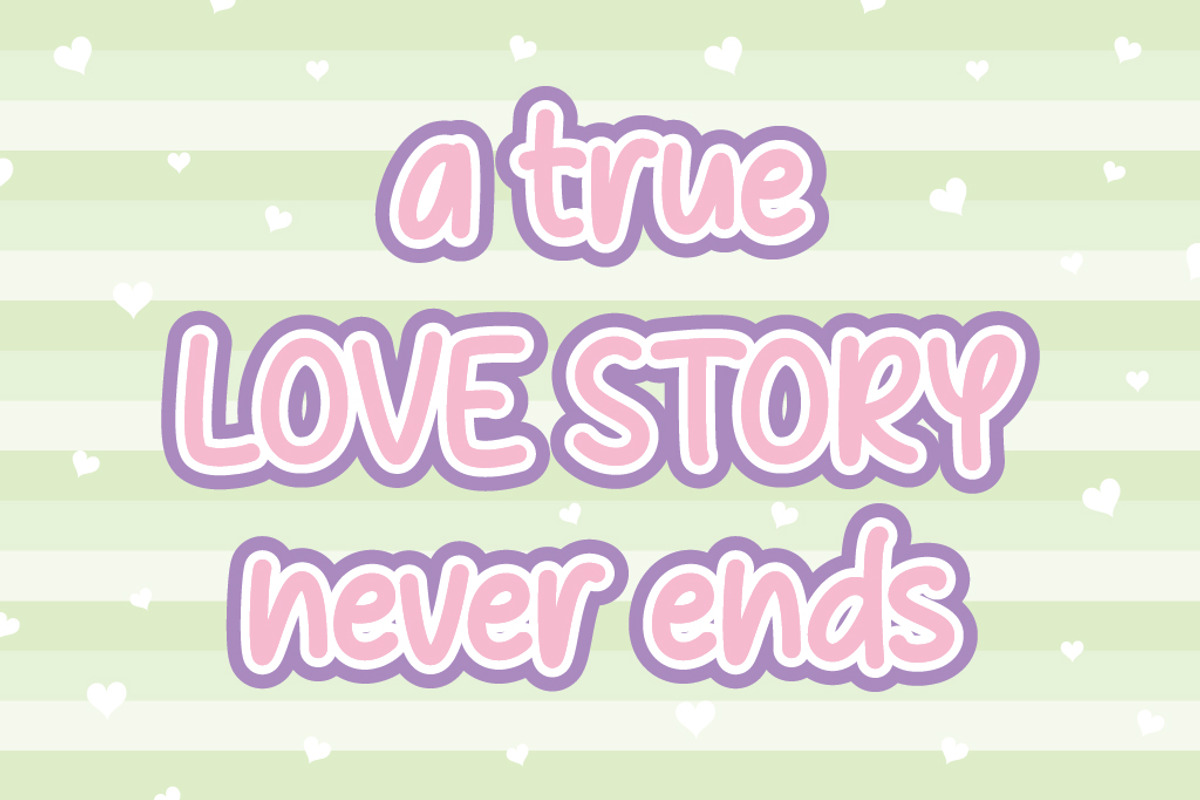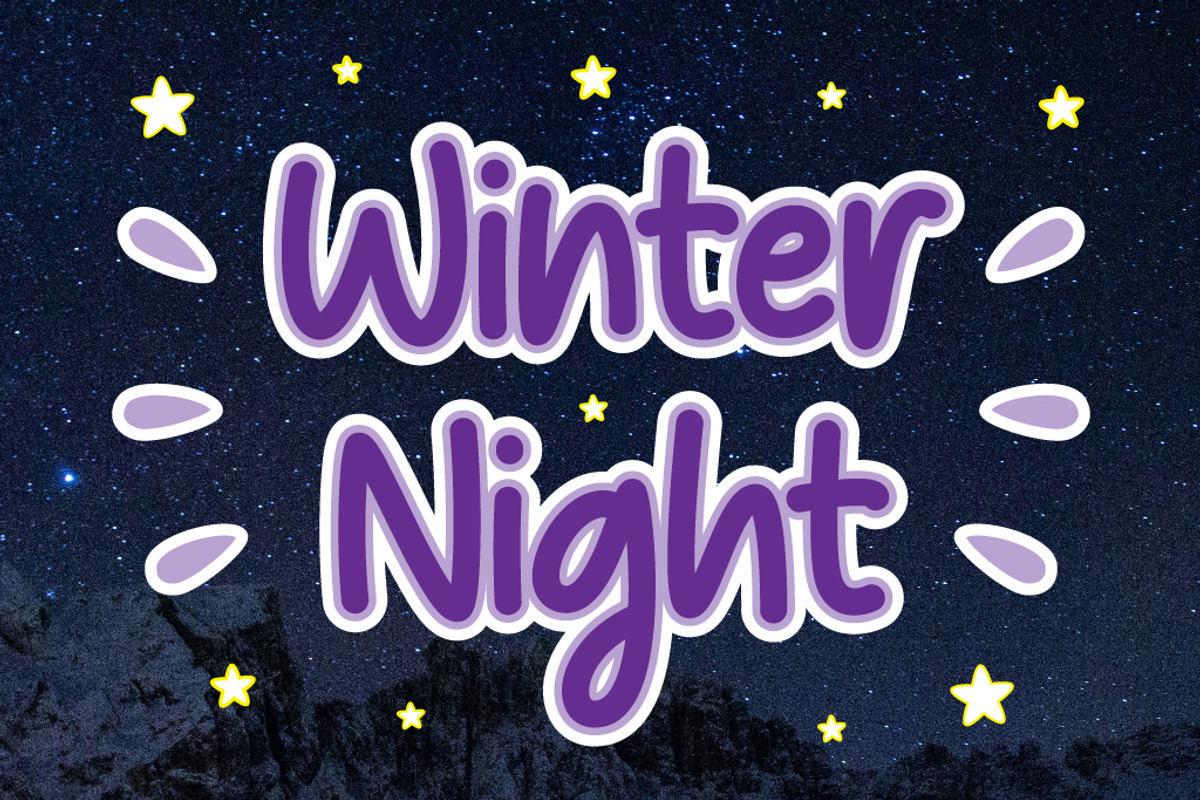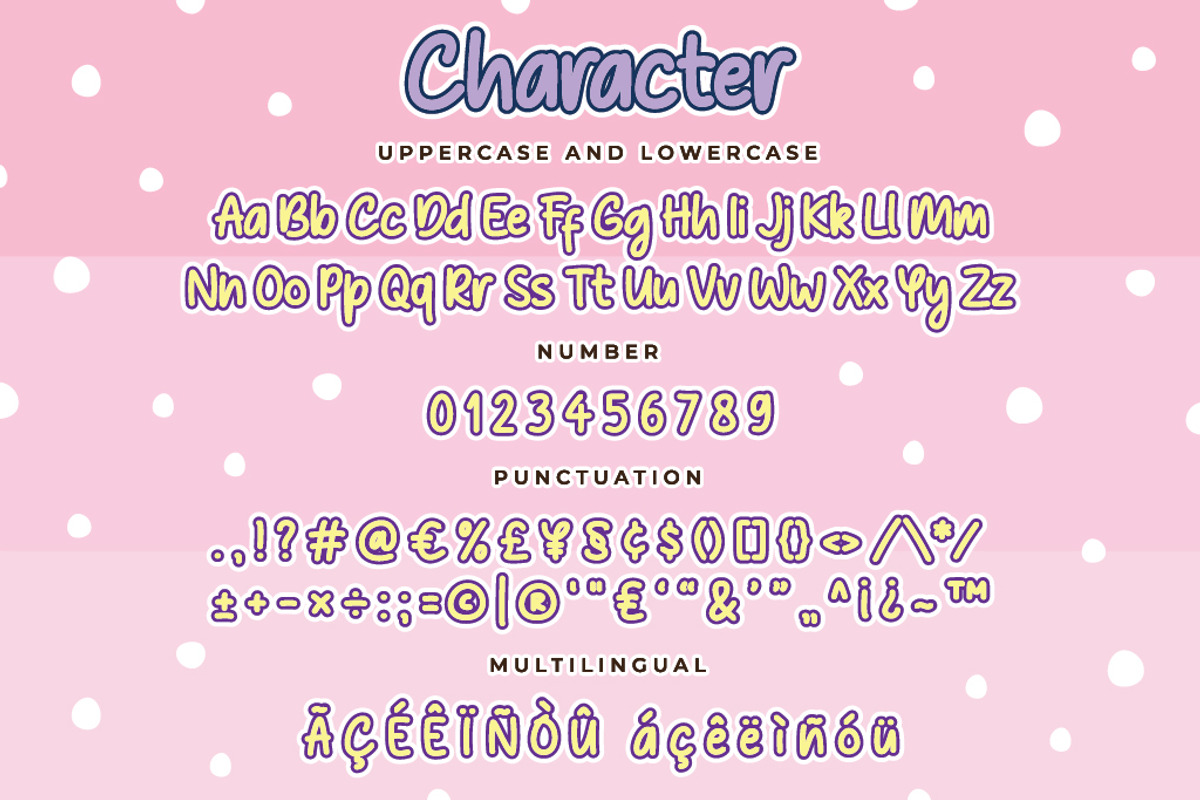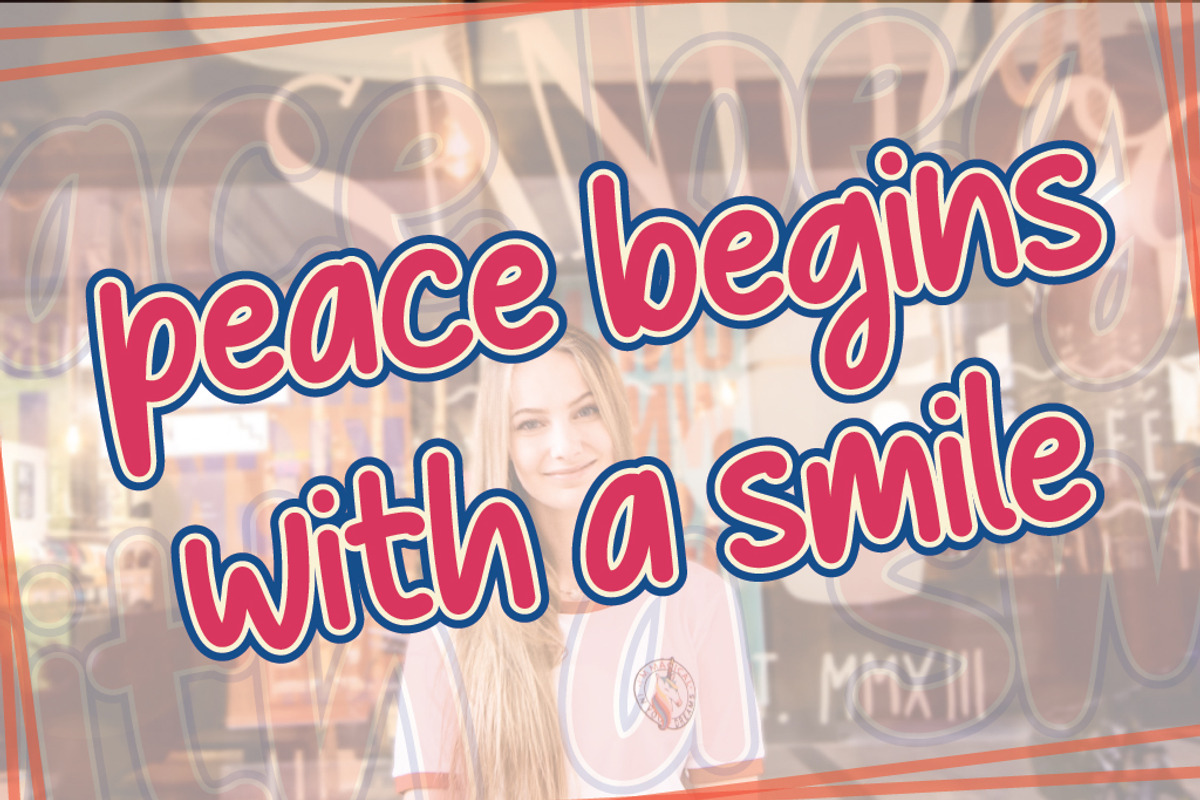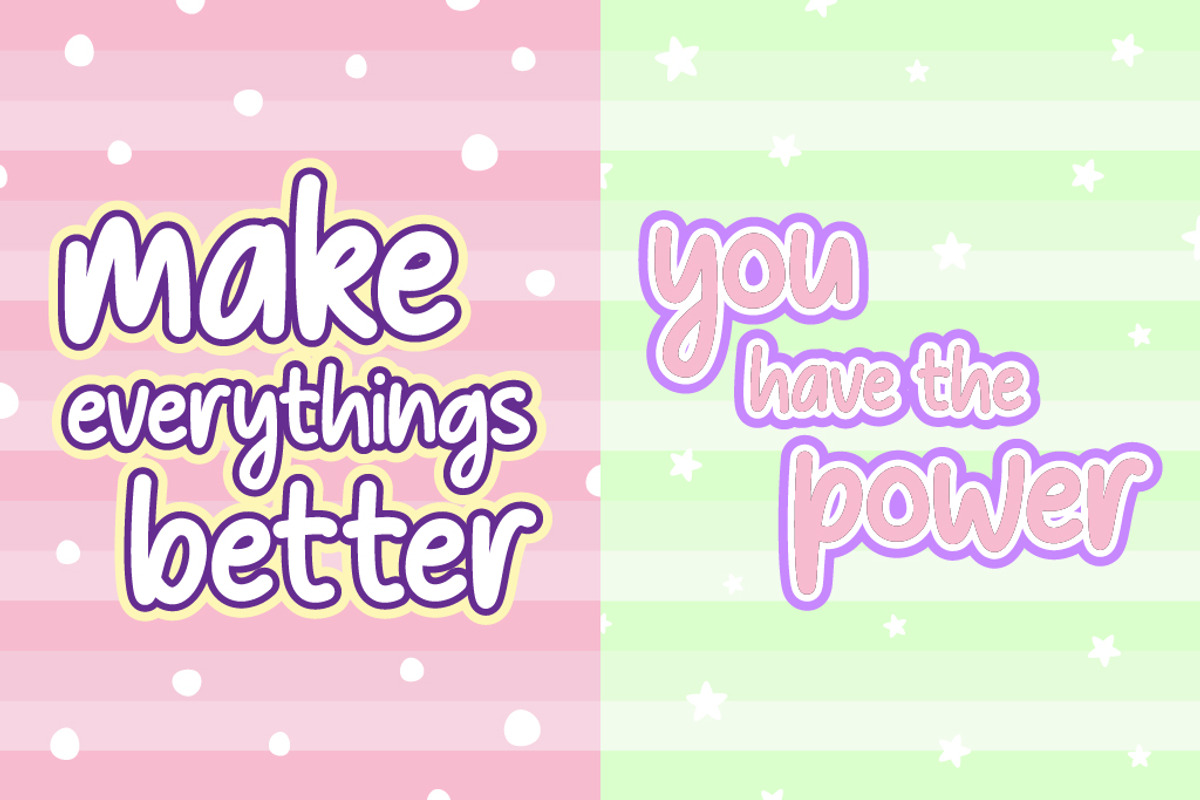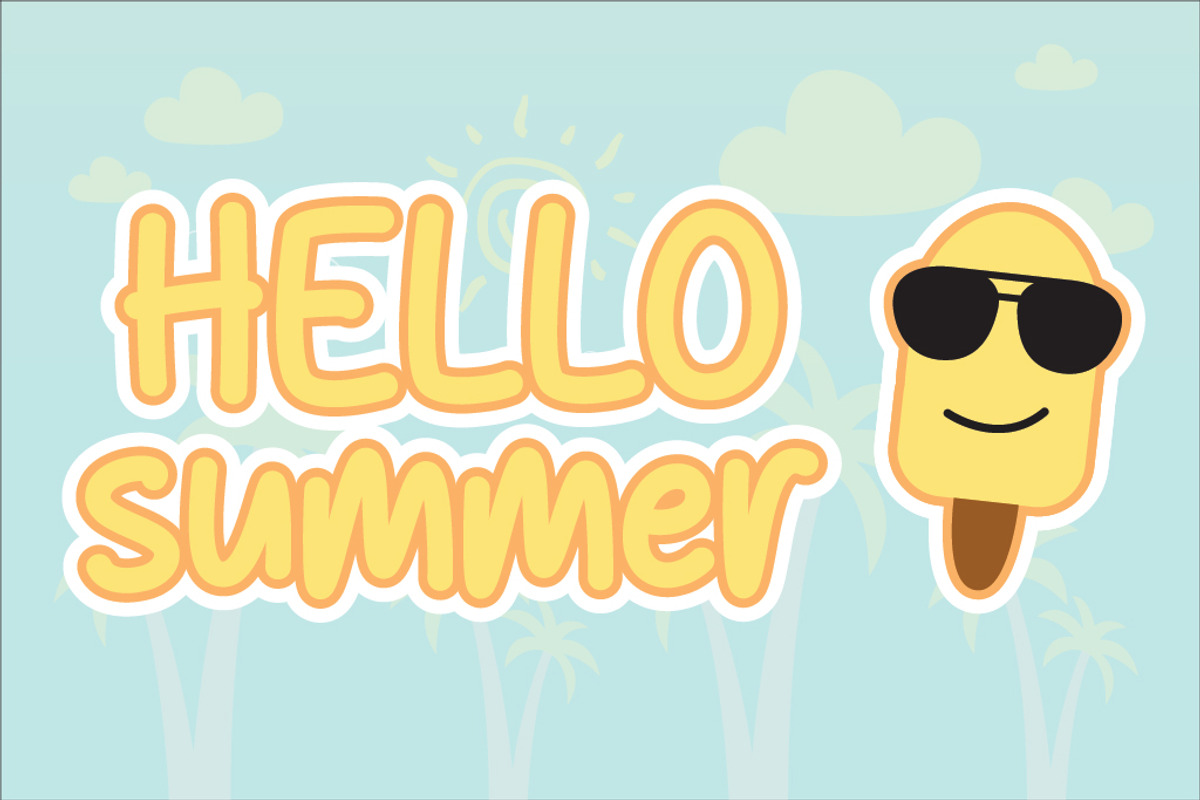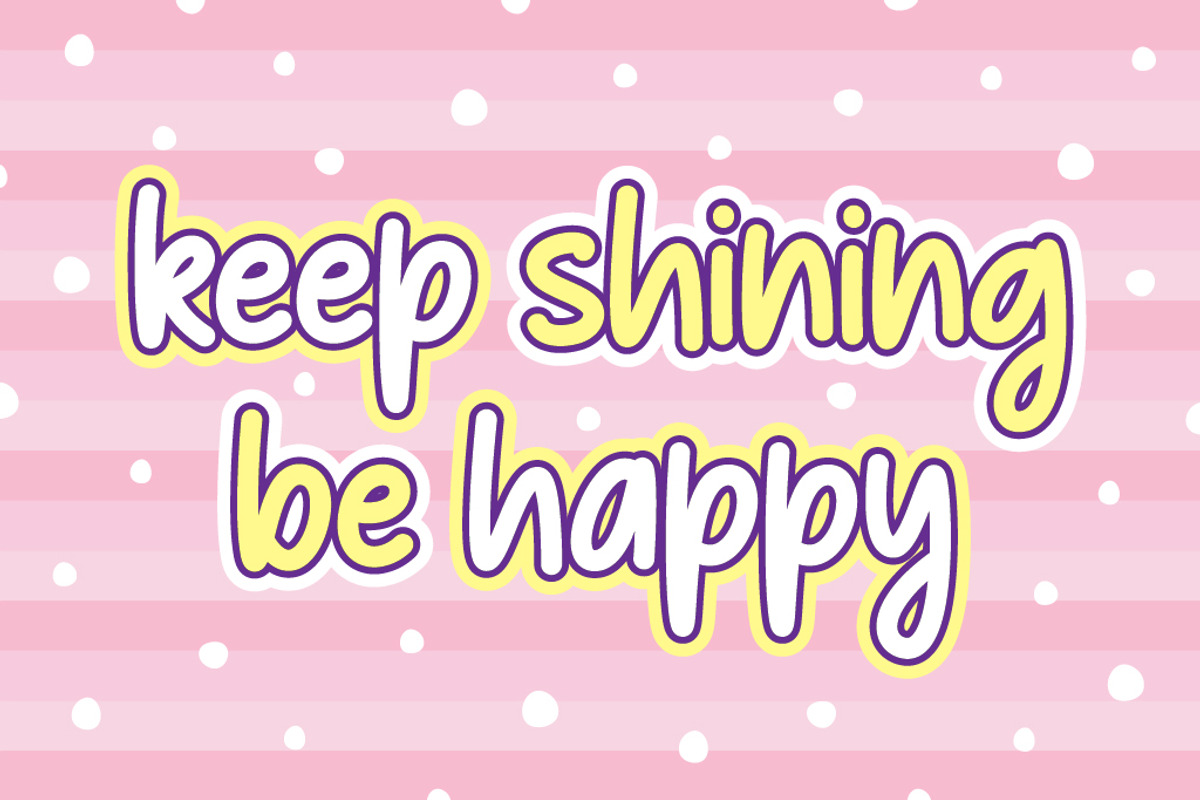
Winter Night Cute Font
Winter Night is a cute, handwritten font made with a creative twist. Winter Night goes well with many designs with its aesthetic sense. You can beautify your web designs, print designs like wedding invitations, make social media posts more attractive, and make cute greeting cards. So that it can decorate your work to be more attractive, and attract the attention of many people.
Winter Night is equipped with multilingual features, so it is still suitable when combined with other languages. Use it immediately to make your creative ideas more realistic and make a spectacular design.